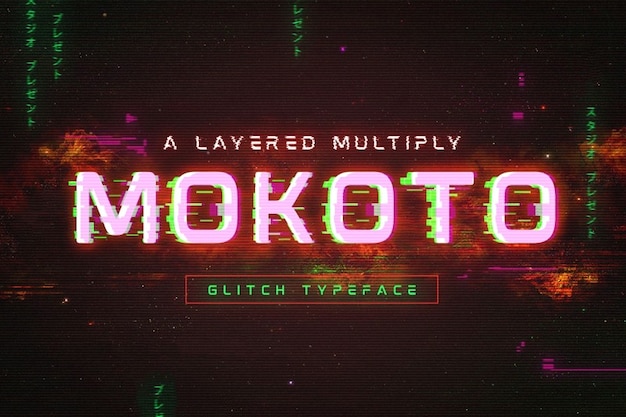
Mokoto
Mokoto Font
Mokoto is the font of the future, where technology and creativity collide. Its futuristic design feels like it's been plucked from a sci-fi video game. Each letter is a work of art, combining decorative elements with a tech-savvy edge. It's like the digital language of tomorrow. Whether you're crafting a gaming logo or a tech-inspired poster, Mokoto injects a sense of innovation into your designs. The sleek lines and intricate details make it perfect for conveying that cutting-edge, high-tech vibe. This font is your gateway to a world where style meets the future, all wrapped up in a creative, decorative package.